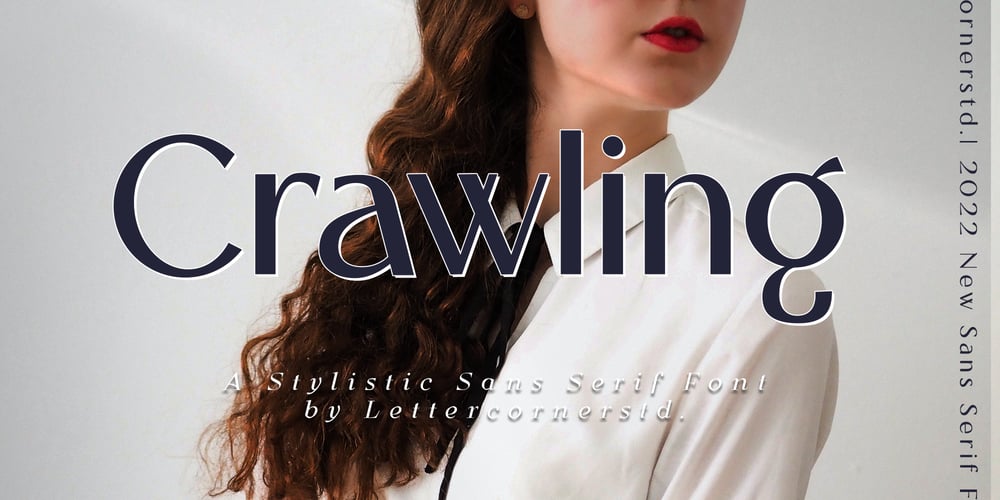
Crawling
Crawling font
Crawling Font Family was designed by Muhammad Afif Ersya and published by Mevstory Studio. Crawling contains 1 styles and family package options. Crawling Chic & Moderf Serif. Crawling is a modern and chic typeface, best used as a display for headings, logos, branding, magazines, product packaging and invitations. Crawling come with clean lines and smooth curves give any project an extra touch of class.If there’s anything else you are unsure of feel free to pop me a message :)That’s it! Have fun using Crawling Typeface!!!Feel free to follow, like and share. Thanks so much for checking out my shop!